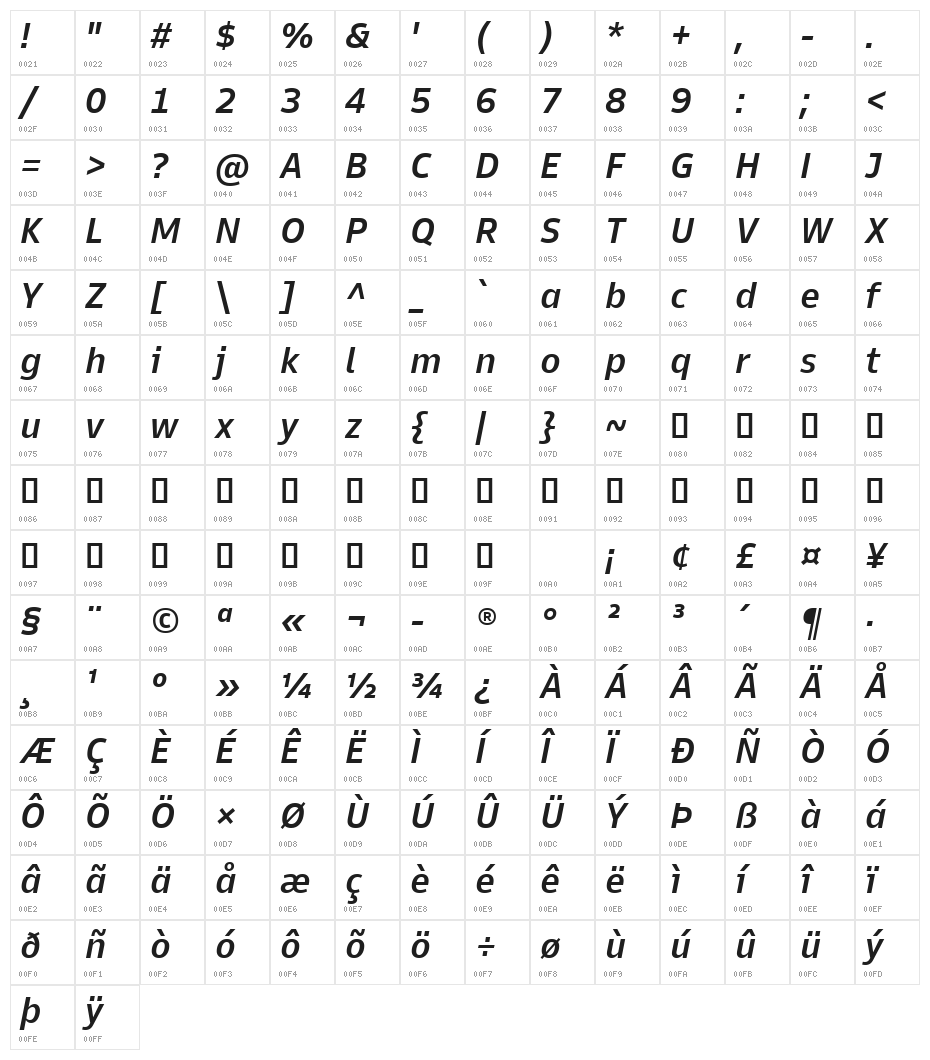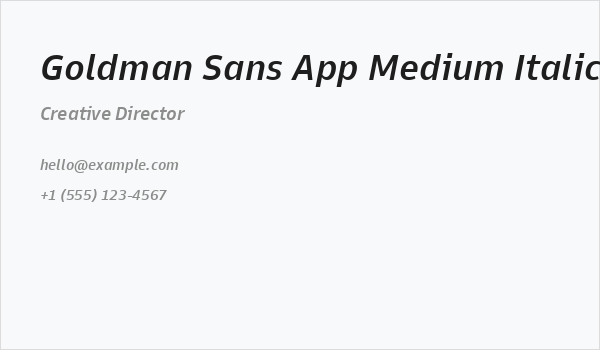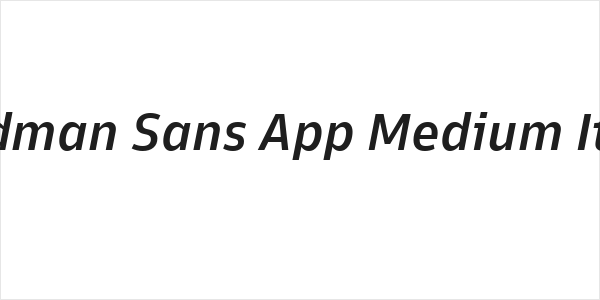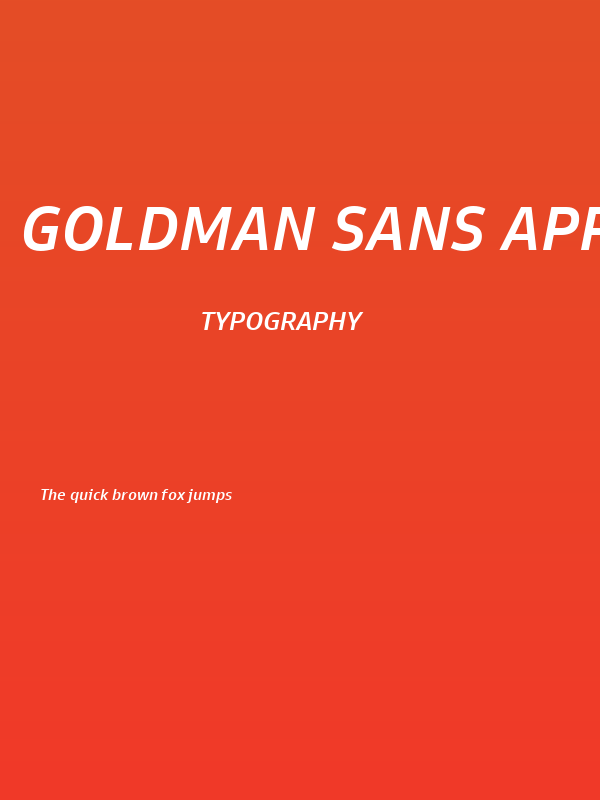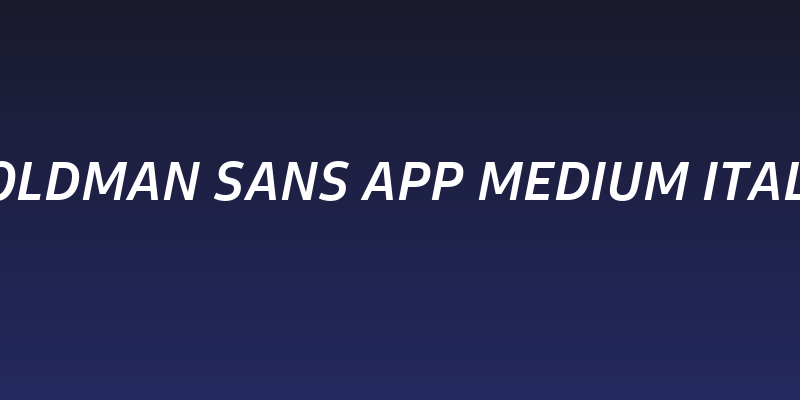
Goldman Sans App Medium Italic Font
Goldman Sans App Medium Italic Description
This font exhibits a clean and modern sans-serif style with a medium weight and italic slant. The characters are well-proportioned, offering a harmonious balance between readability and aesthetic appeal. The italic angle adds a dynamic and forward-moving feel, making it suitable for contemporary design projects. The numerals and special characters are consistent with the overall style, ensuring uniformity across different uses. The font's smooth curves and straight lines create a sleek appearance, ideal for digital and print media.
| Proposed Projects | Ideal for branding, digital interfaces, advertising, and editorial design. |